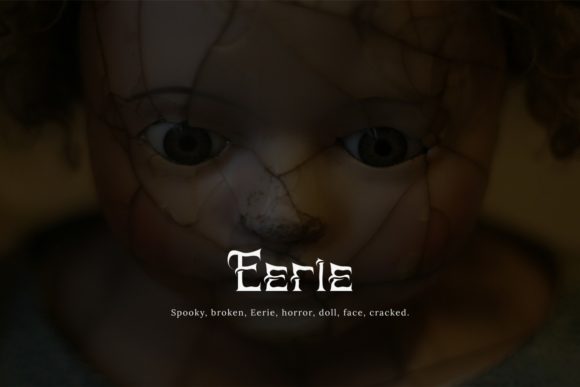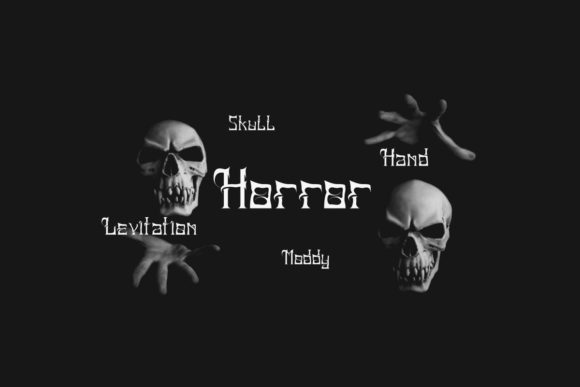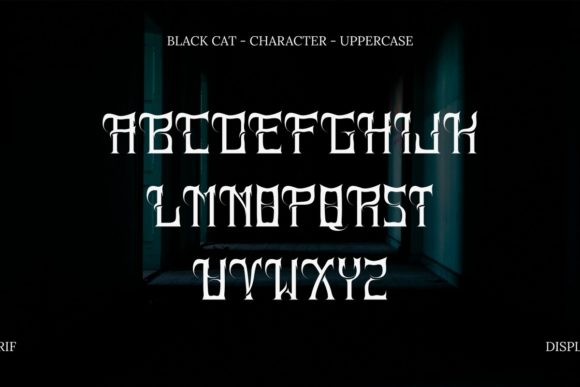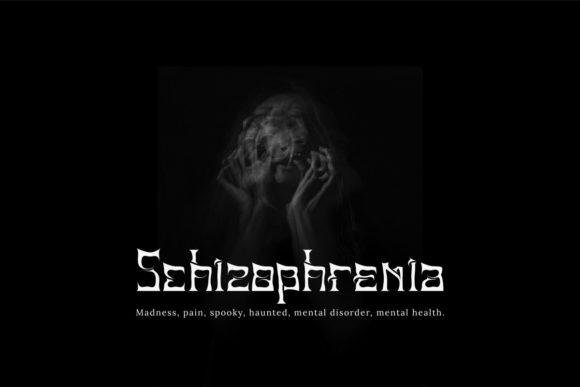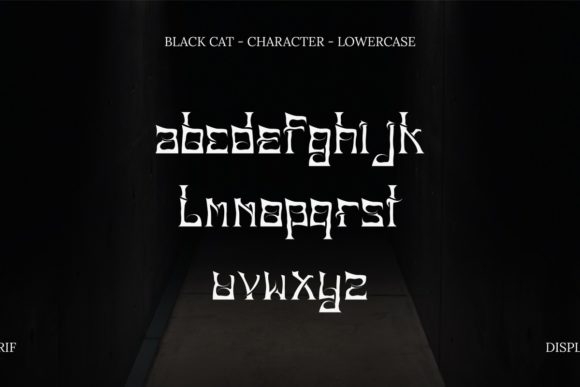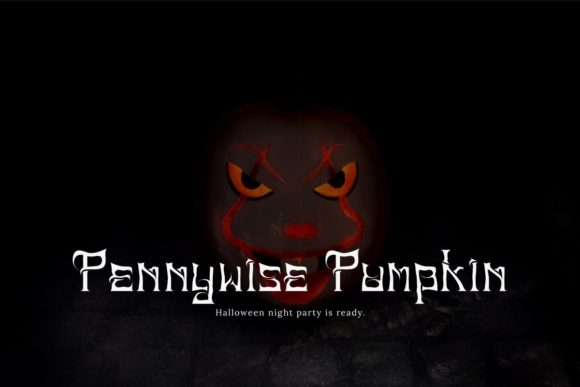
The Purr-fect Font for Horror-themed Projects: A Deep Dive into Black Cat Font
I’ll never forget the night I was working on a Halloween-themed project for a client, and I just couldn’t find the right font to capture the spooky essence I was going for. The project was a haunted house brochure, and I wanted a font that would send shivers down the reader’s spine. That’s when I stumbled upon the Black Cat Font. It was love at first sight! ✨
With its unique, eerie feel, Black Cat Font instantly transported me to a world of horror and suspense. I knew right then and there that it was the perfect fit for my project. In this article, I’ll share my experience with Black Cat Font, its features, and how to make the most of it in various design platforms.
An Honest Review of Black Cat Font
What I Love About Black Cat Font
- 👻 Spooky and eerie feel that’s perfect for horror-themed projects
- ✨ Unique display font that stands out from the crowd
- ✅ Highly legible, even in large and small sizes
- 🔥 Great for creating eye-catching titles, headings, and posters
While Black Cat Font is an amazing font, it’s not without its quirks. 🤔 Here are a few things to keep in mind:
- ⚠️ May not be suitable for body text or long paragraphs, as it can be a bit too ornate
- ⚠️ Some characters may not be suitable for use in small sizes, due to intricate details
The Backstory Behind Black Cat Font
Black Cat Font was designed by a team of creatives who wanted to create a font that would capture the essence of horror and suspense. The font’s unique design is inspired by traditional horror movie posters and old-fashioned Halloween decorations. The designers aimed to create a font that would be both spooky and elegant, making it perfect for a wide range of design projects.
| Font Name | Black Cat Font |
| Author | inferno.studio3 |
Q: What type of projects is Black Cat Font best suited for?
A: Black Cat Font is perfect for horror-themed projects, such as Halloween decorations, haunted house brochures, and horror movie posters.
Q: Is Black Cat Font available in different styles or weights?
A: Yes, Black Cat Font comes in different styles and weights, making it versatile and flexible for various design projects.